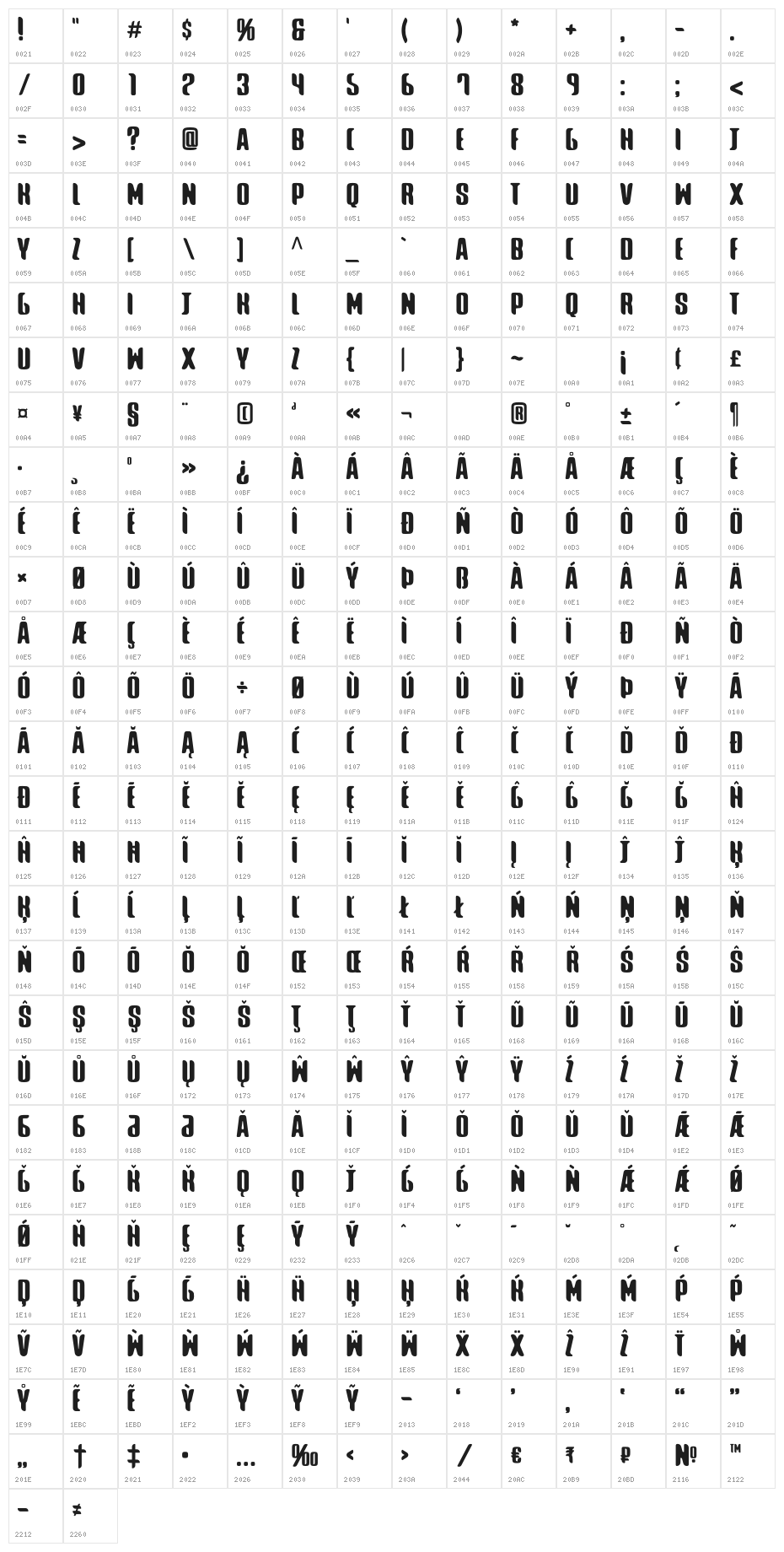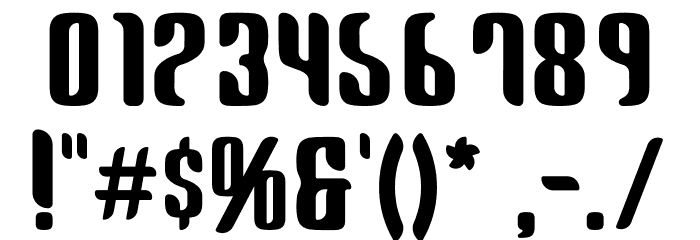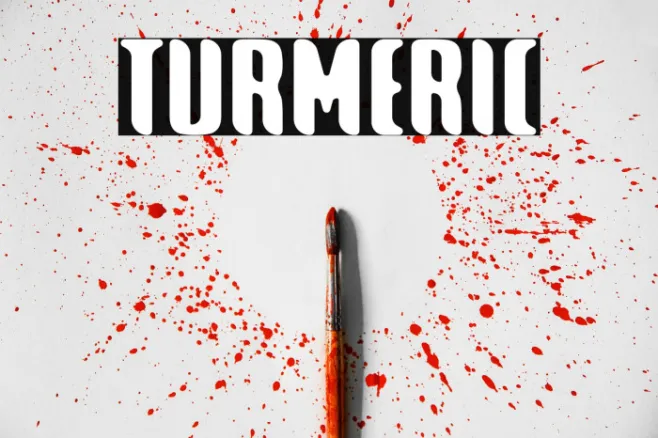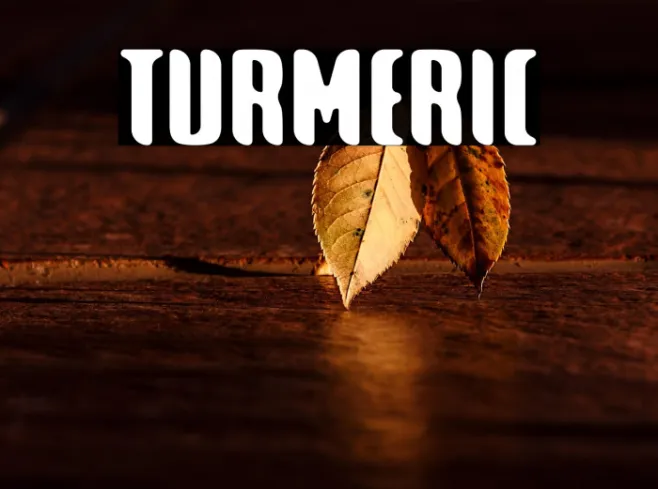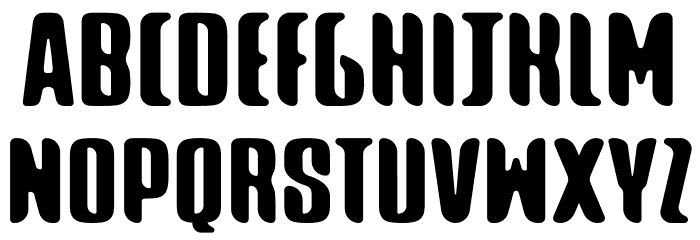
Turmeric Font
Turmeric Description
This font features bold, rounded characters with a distinctively playful and modern appearance. The letters are thick and have a uniform stroke width, giving them a strong presence on the page. The rounded edges soften the overall look, making it approachable and friendly. The numerals and special characters maintain the same bold style, ensuring consistency across all text elements. This font is highly legible and stands out due to its unique character shapes and boldness.
| Proposed Projects | Ideal for branding, posters, and headlines where a strong, friendly impact is desired. |